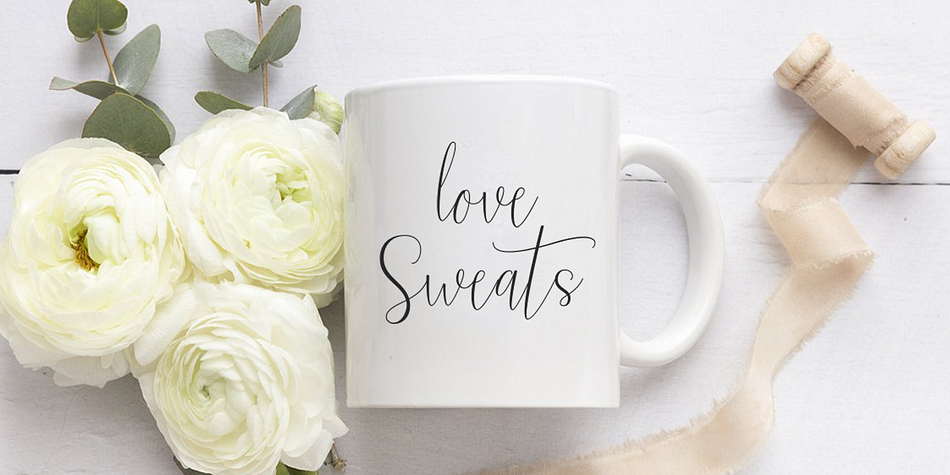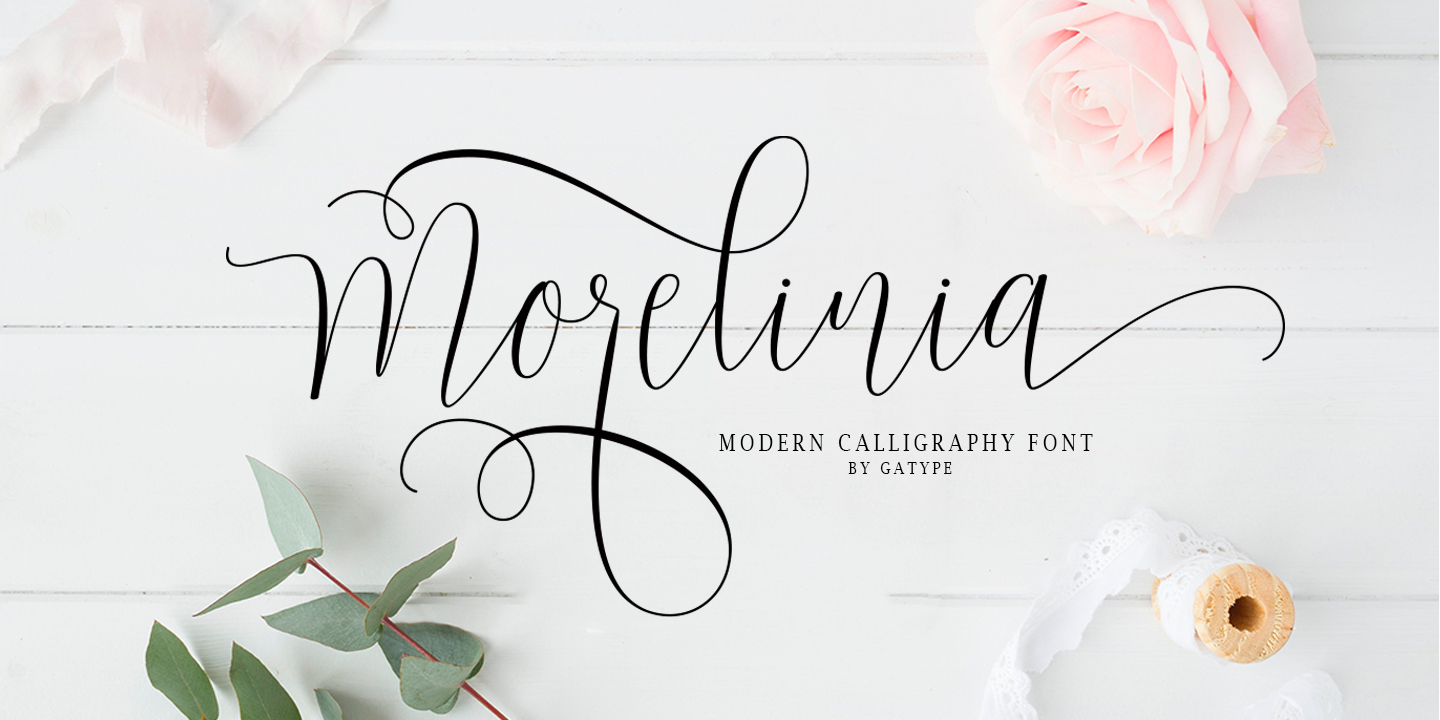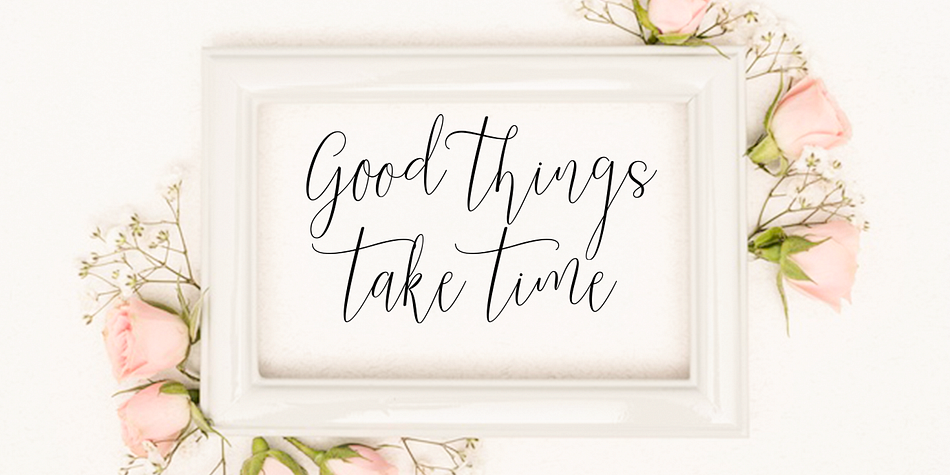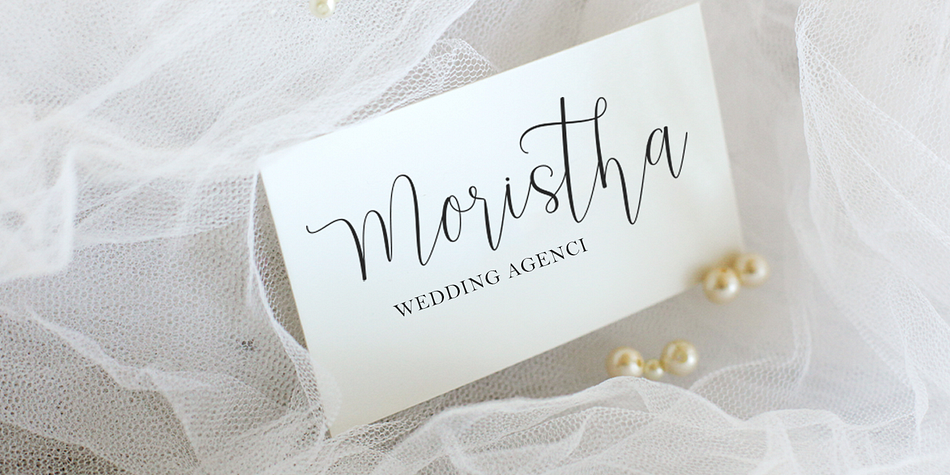
Morelinia
Morelinia is a modern calligraphy font family published by Gatype.
Morelinia is a modern, handwritten, modern calligraphy font. The shape is modern and unique and the writing style is very natural. Morelinia features a varied baseline, smooth lines, gorgeous glyphs, and stunning alternatives. Hand-drawn design elements allow you to create many beautiful typographic designs in an instant like branding, web design and editorial, prints, crafts, quotes, It’s great for logotypes, wedding invitations, romantic cards, labels, packaging, spelling of names and others. Add to your most creative ideas and watch how they bring them to life!